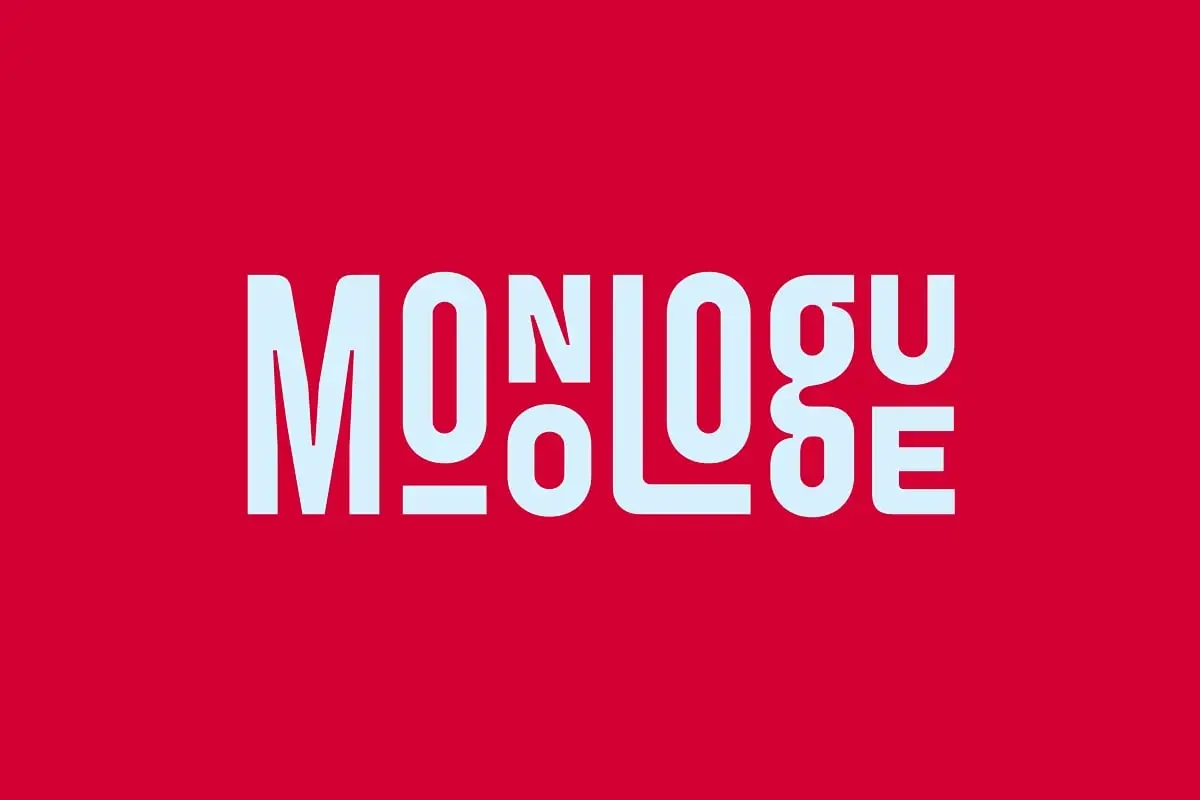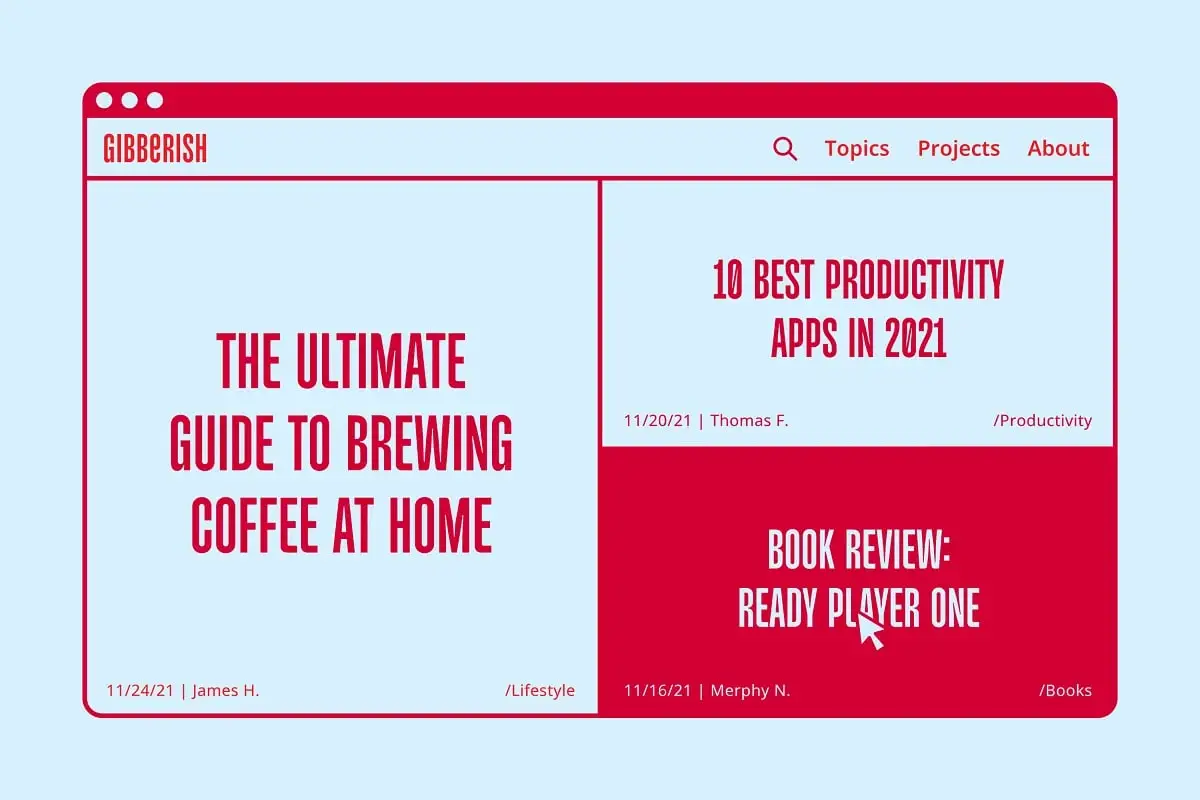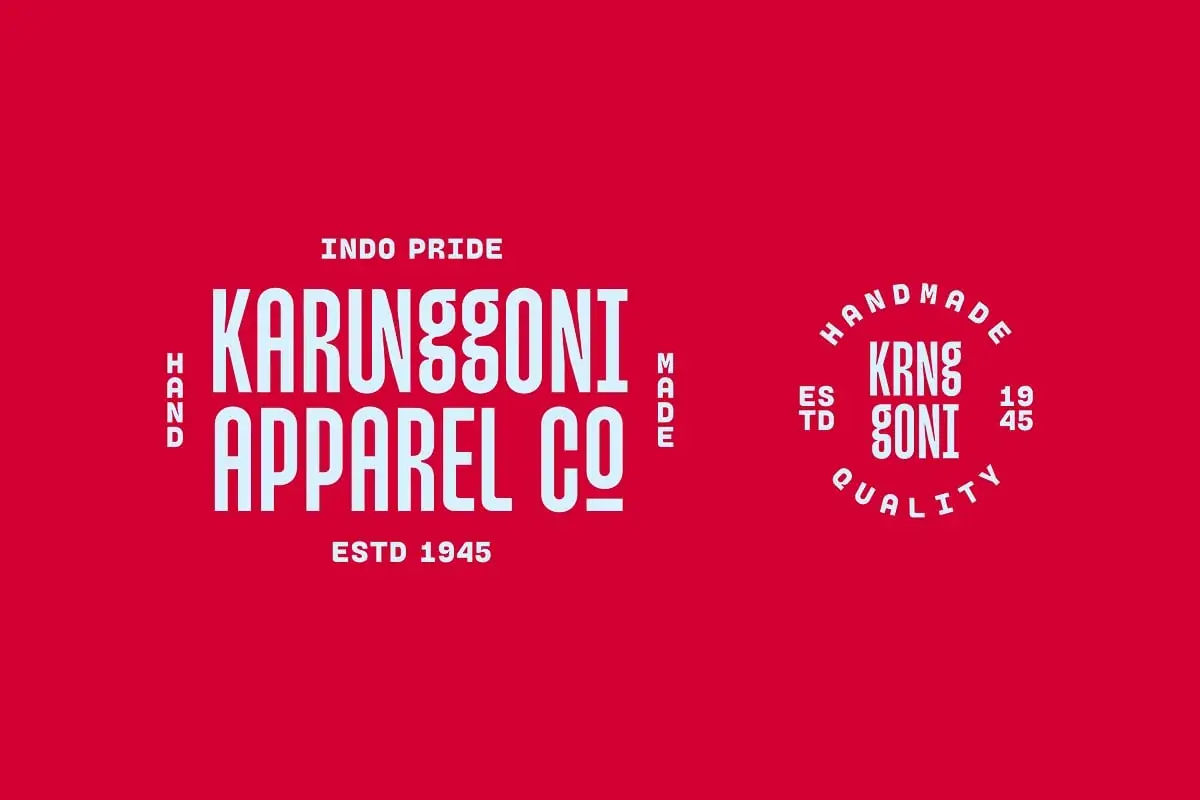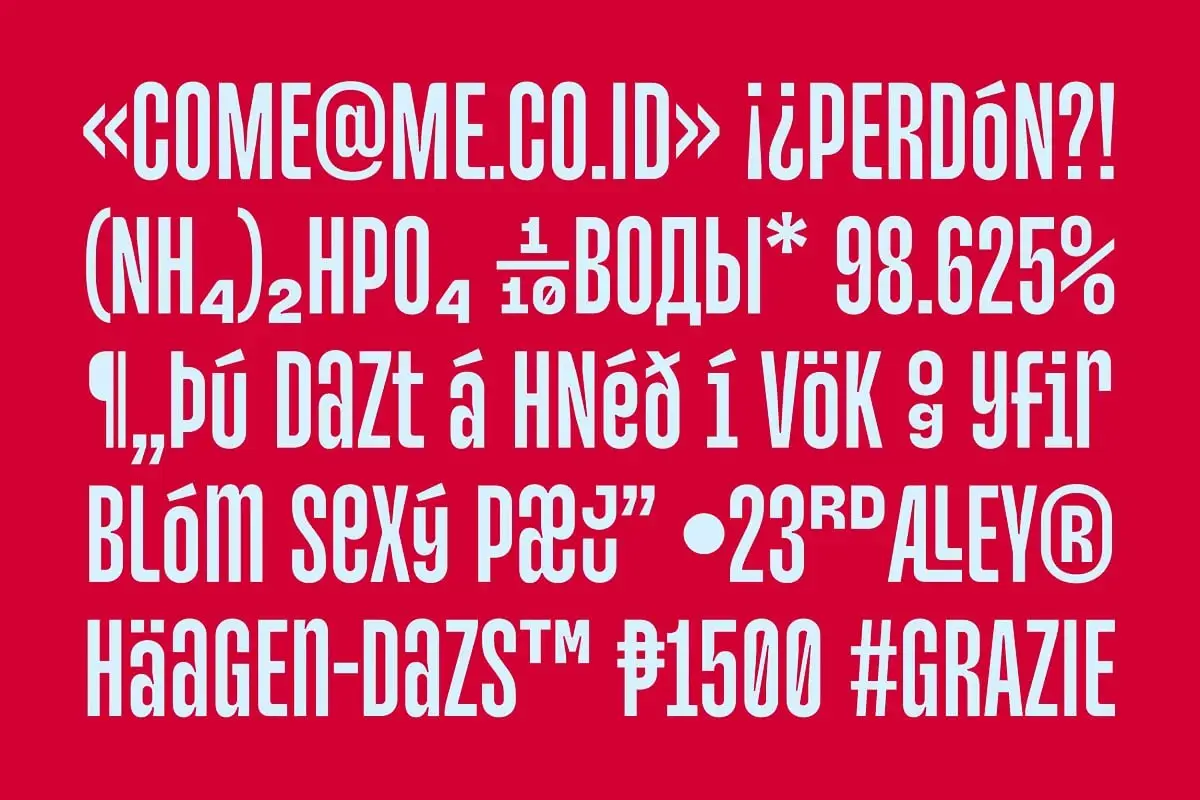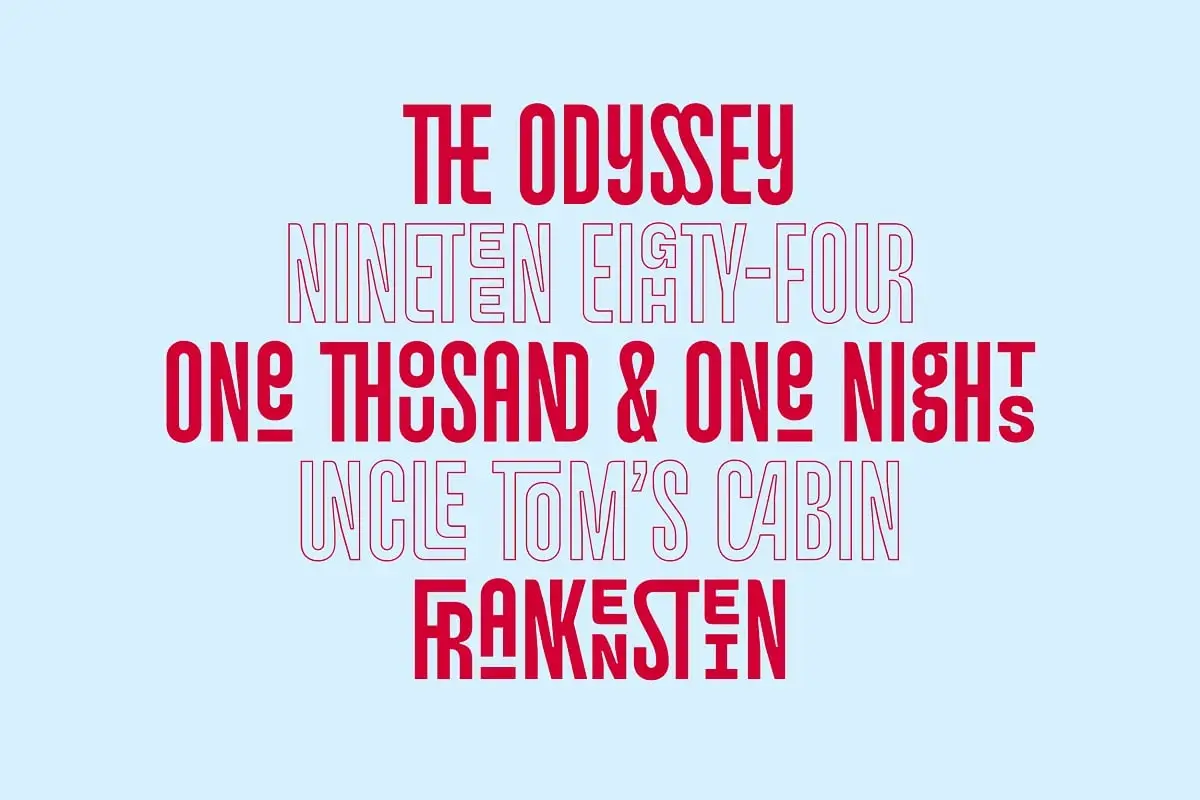
Monologue Font
The Monologue Font is a unique typeface designed to bring a touch of elegance and sophistication to your projects. With its clean lines and modern aesthetic, this font is perfect for a variety of applications, including branding, logos, web design, and print materials.
• Available in multiple weights for versatile usage
• Stylish uppercase and lowercase letters
• Includes special characters and punctuation
• Designed for readability in both large and small sizes
• Style: Sans-serif
• Weight: Regular, Bold
• Ideal for creating impactful headlines and branding materials
• Use in web design for a modern look
• Perfect for print projects like brochures and flyers